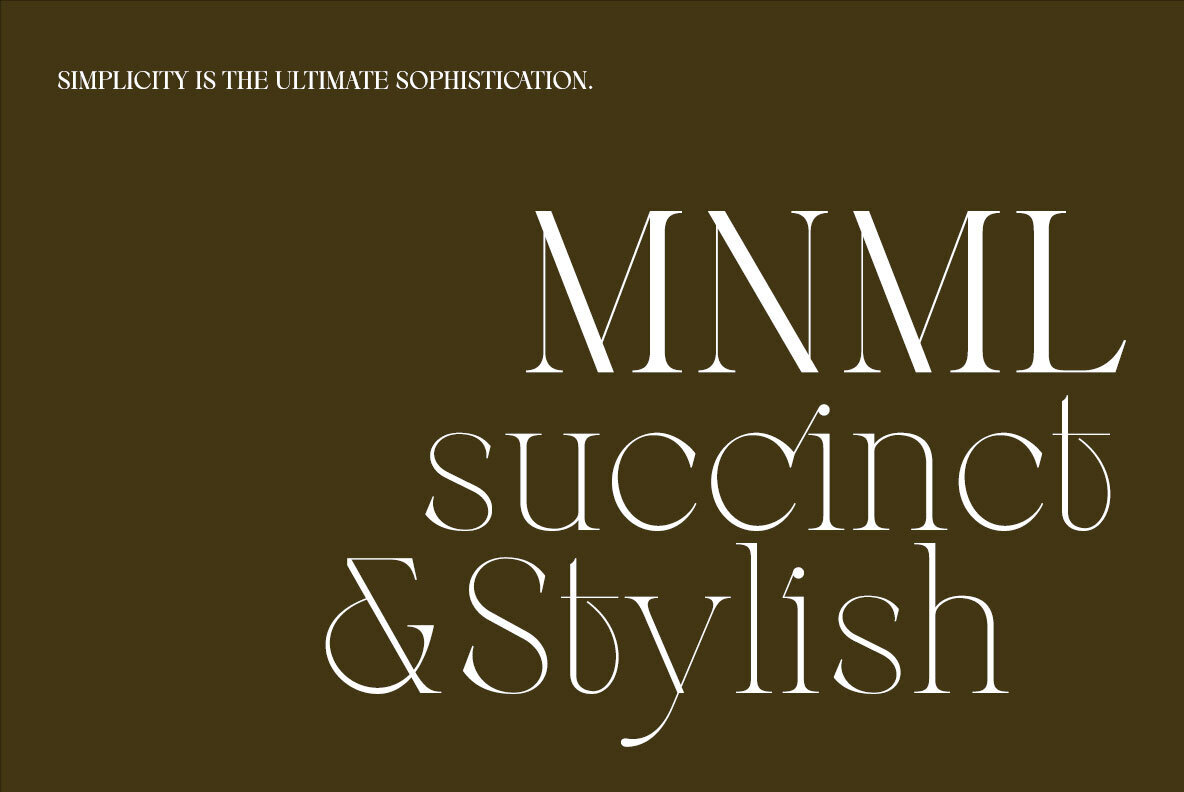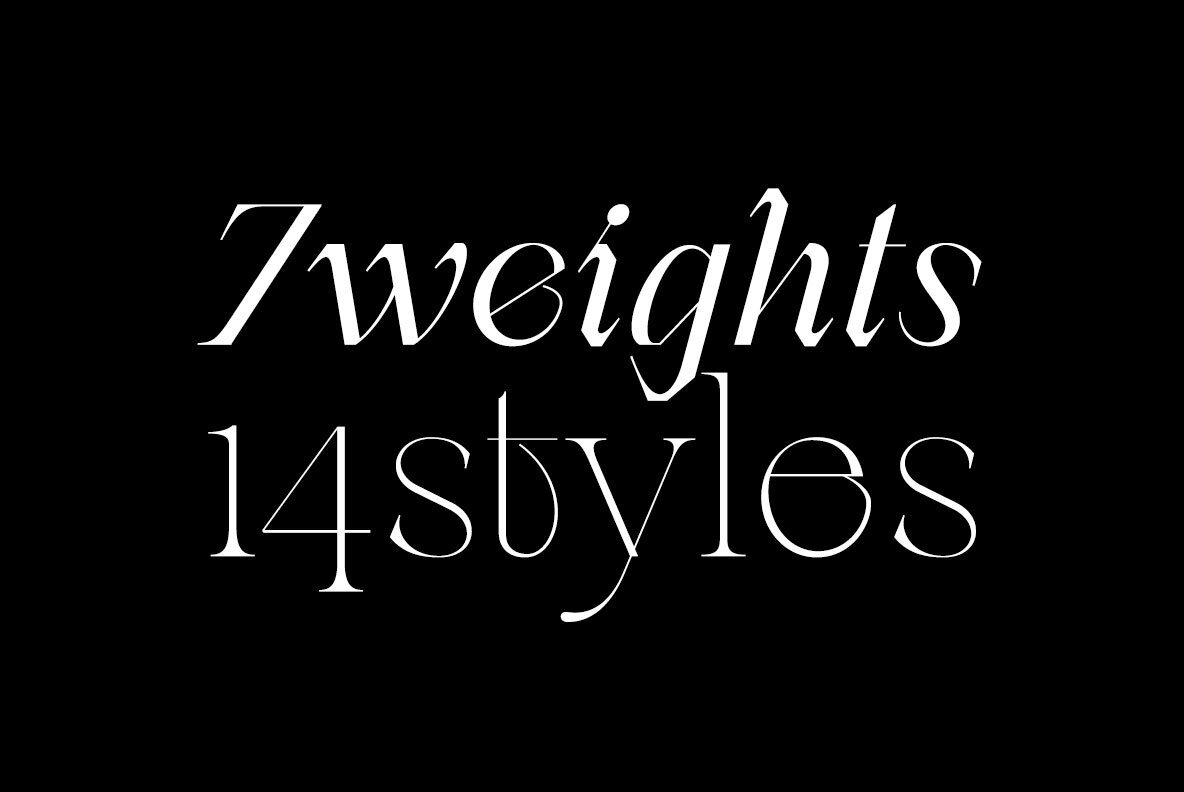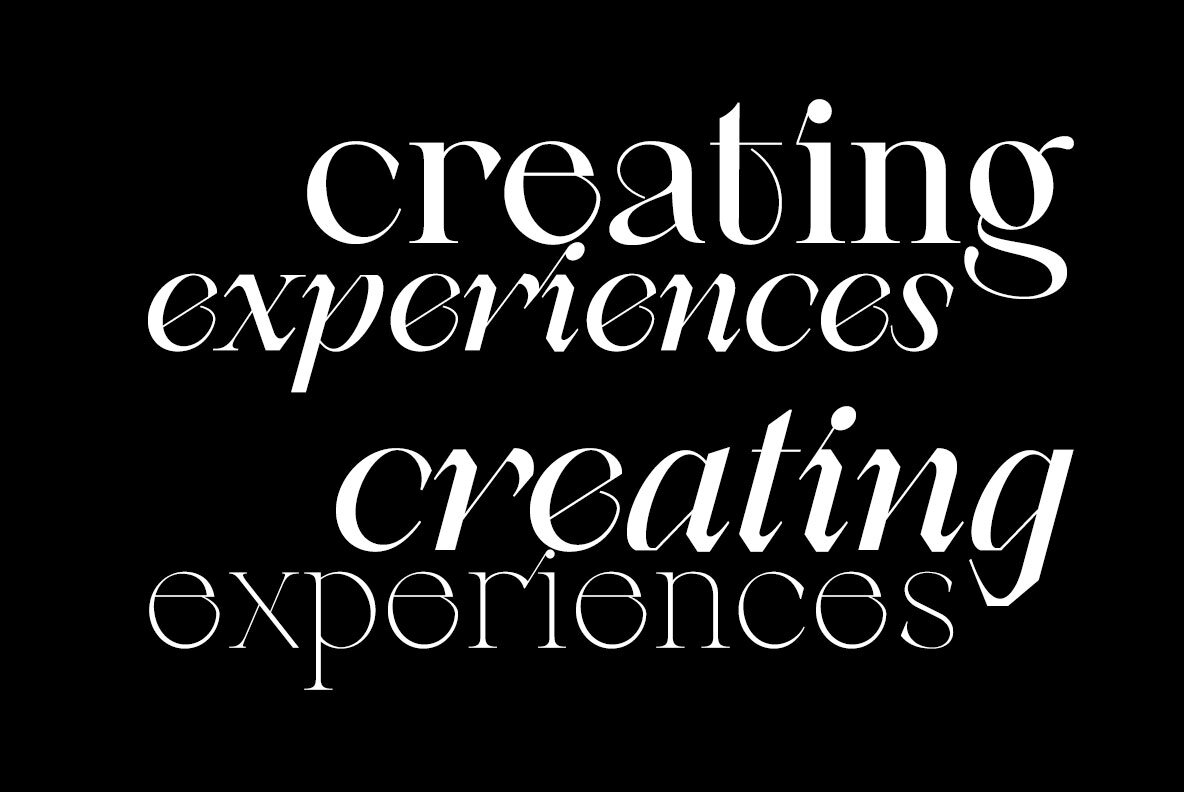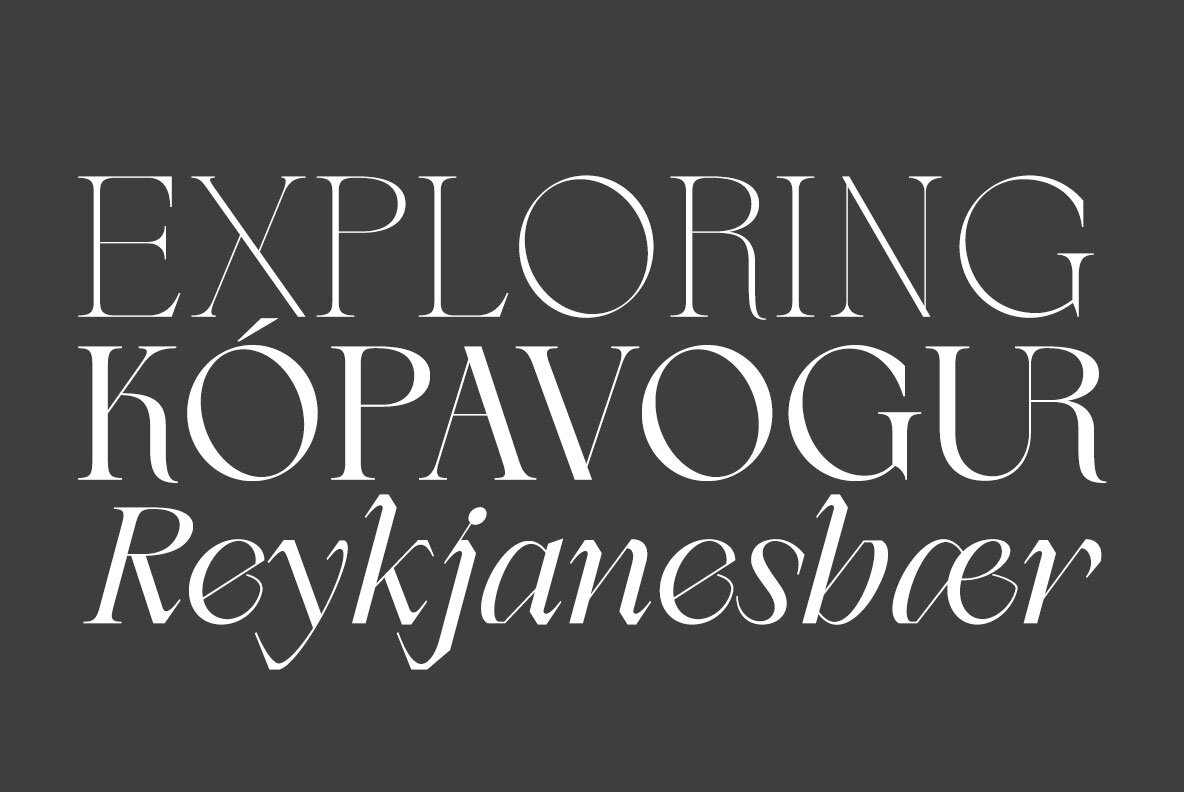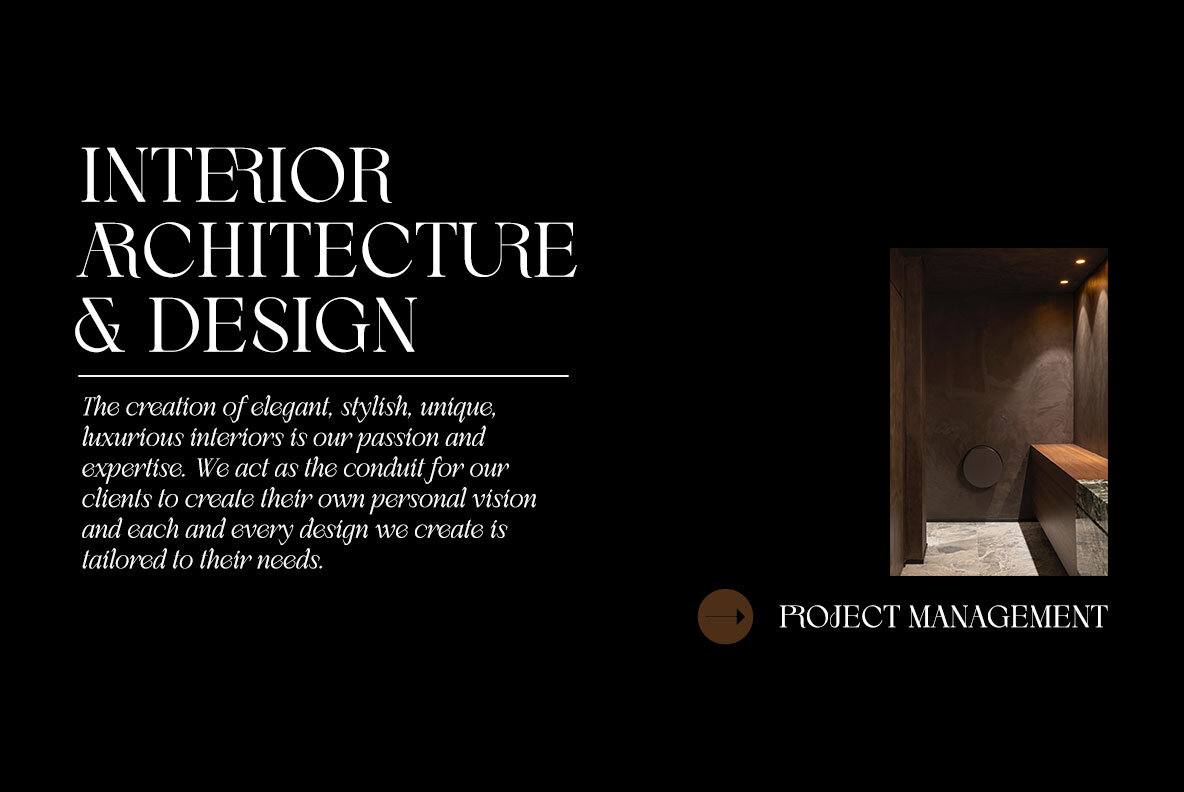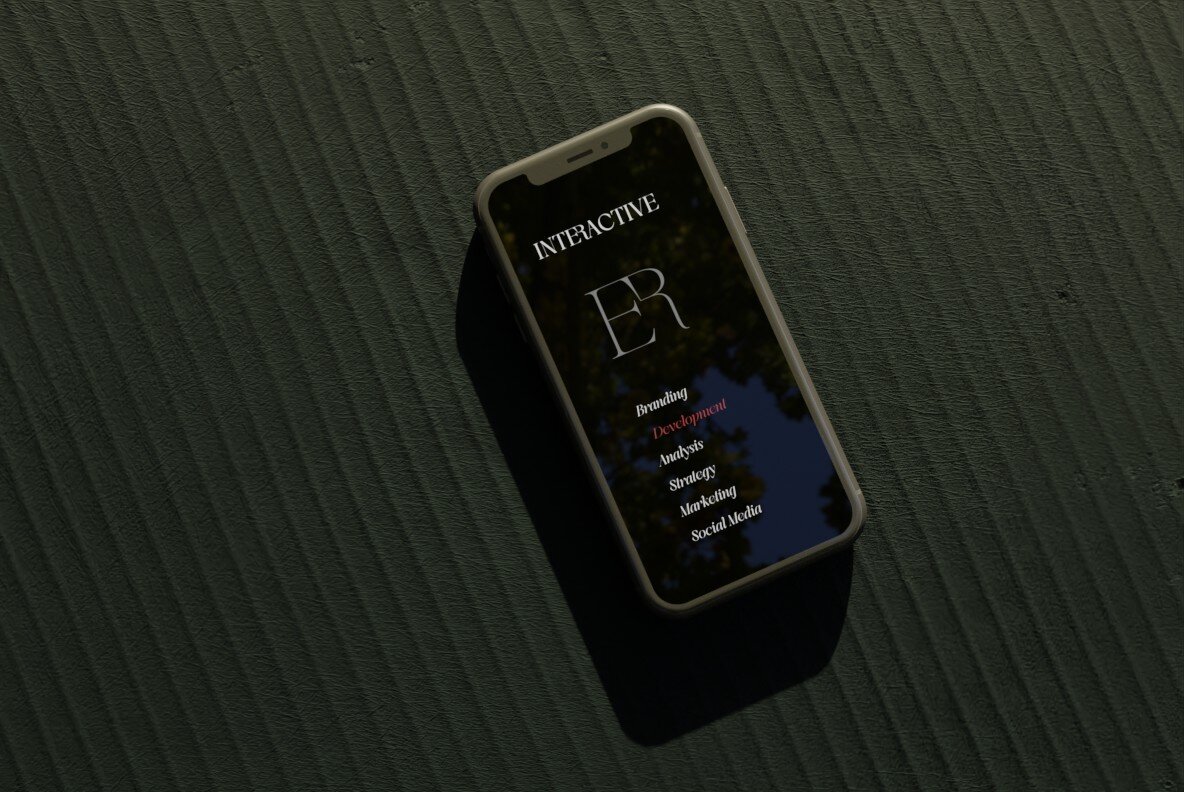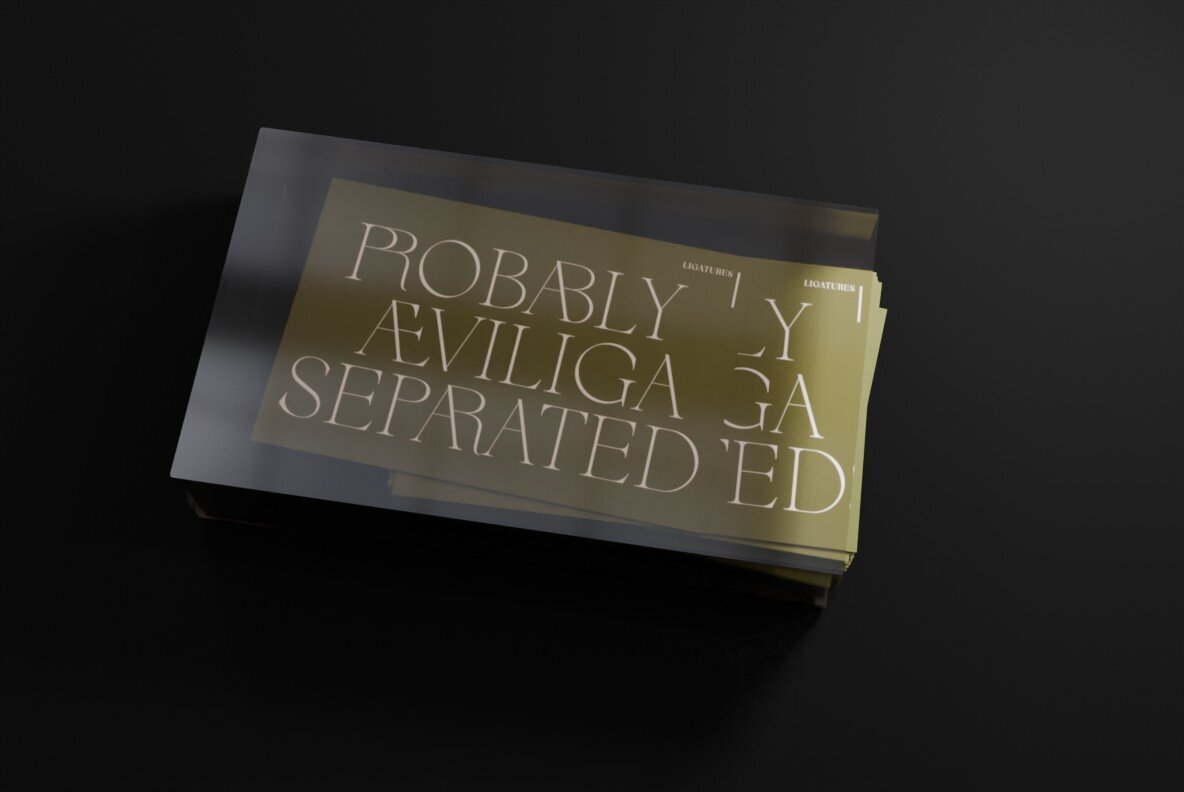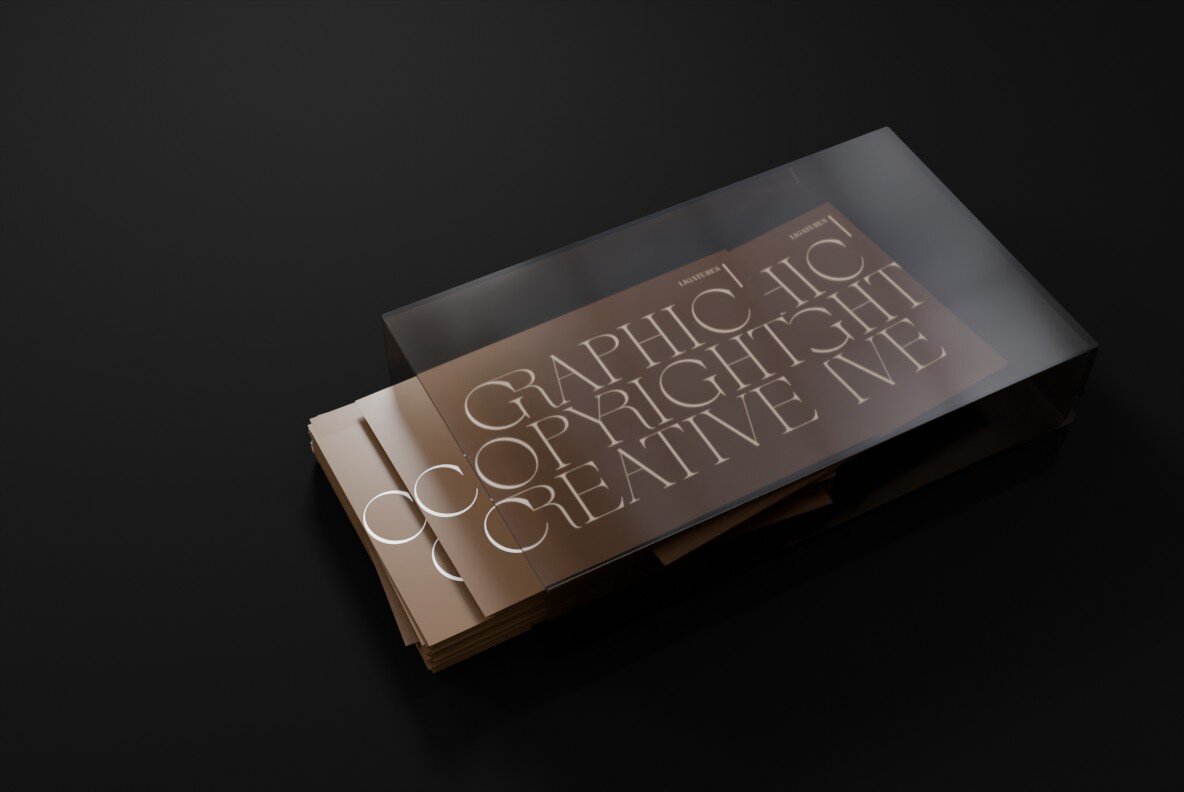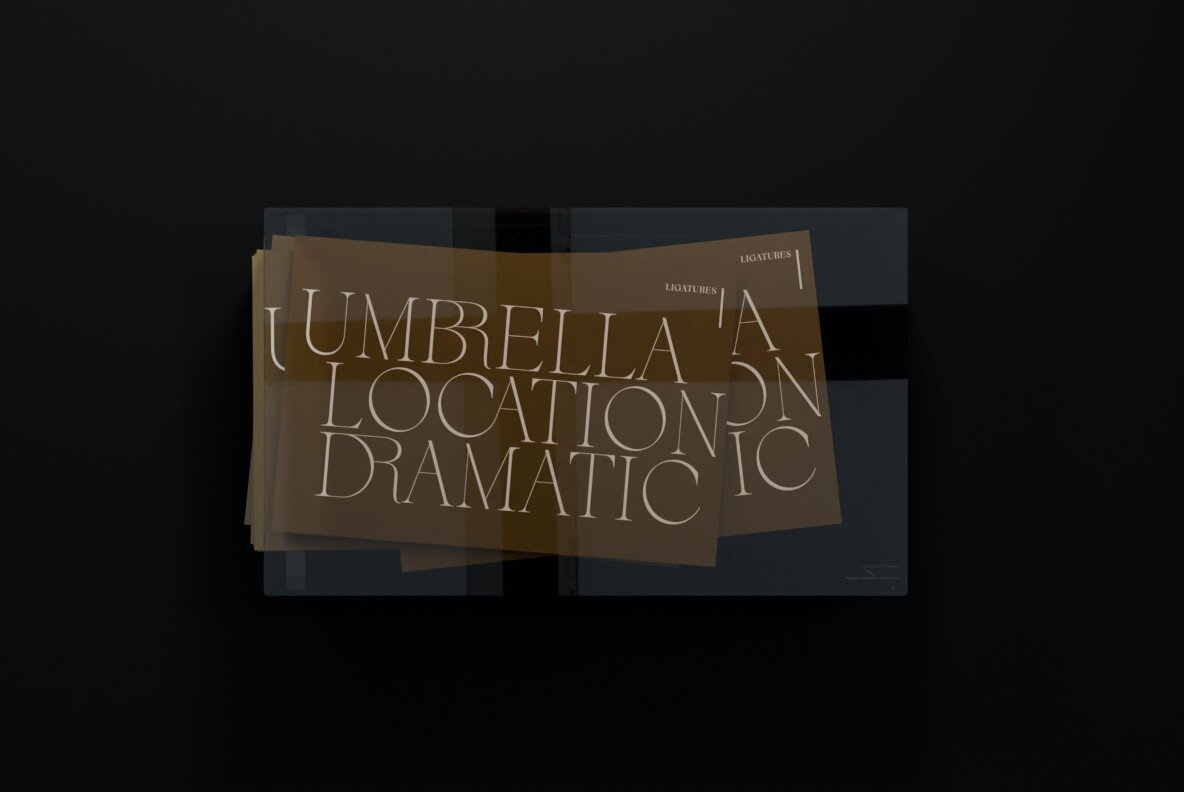
Berneray Font
The Berneray Serif Font Family is designed for those seeking emotional and impactful lettering for logos, title designs, and italic headlines. The elegant and unique delicacy of this display serif font provides a sophisticated sense of space. The contrasting static and italic styles offer creators a broader scope of options, ensuring versatility in various design projects. The list of ligatures included in this font family is as follows:
With a rich selection of ligatures, Berneray supports modern and understated typography. Standard ligatures such as 'ff', 'fi', and 'fl' enhance the sophistication, while discretionary ligatures like 'AB', 'CR', and 'DR' add a refined touch to your creations. This font family is a valuable tool for designers aiming to craft visually compelling and highly customizable text elements.